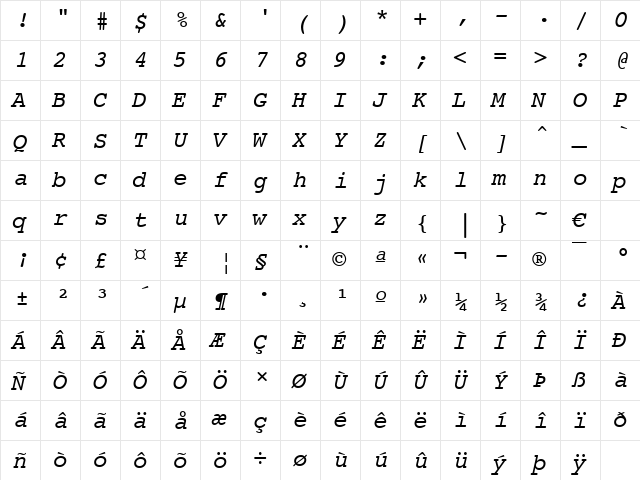
Design Context for Courier10 WGL4 BT Typeface
Courier10 WGL4 BT brings the precise, column-aligned rhythm of monospaced typography to designs that value technical clarity and systematic order. Its italic angle brings a sense of urgency and motion to the letterforms.
Pro Tip: Use Courier10 WGL4 BT with slightly increased line-height for extended reading — fixed-width spacing can feel dense in longer passages without extra breathing room.